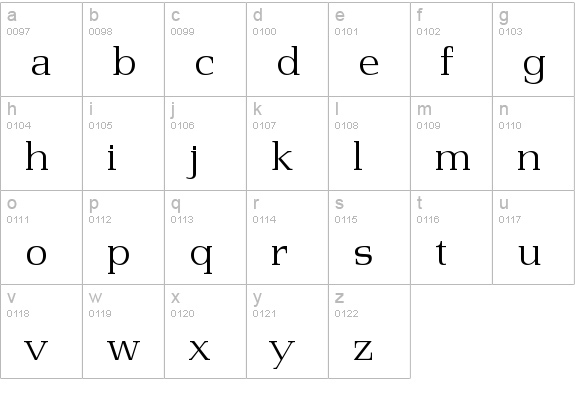
PenthouseSerial-Xlight-Regular is the standard, neutral variant in the PenthouseSerial typeface family \xE2\x80\x94 well suited to general body text, paragraphs, and standard typographic work.
PenthouseSerial-Xlight-Regular is a sleek and modern font that exudes sophistication and elegance. With its clean lines and delicate curves, this typeface is perfect for adding a touch of refinement to any design project. Whether you're working on a logo, website, or print materials, PenthouseSerial-Xlight-Regular will make your text stand out with its understated beauty. The best part? PenthouseSerial-Xlight-Regular is completely free to download at FontsMarket.com. This means you can add this premium font to your collection without breaking the bank. Don't miss out on the opportunity to elevate your designs with PenthouseSerial-Xlight-Regular today!